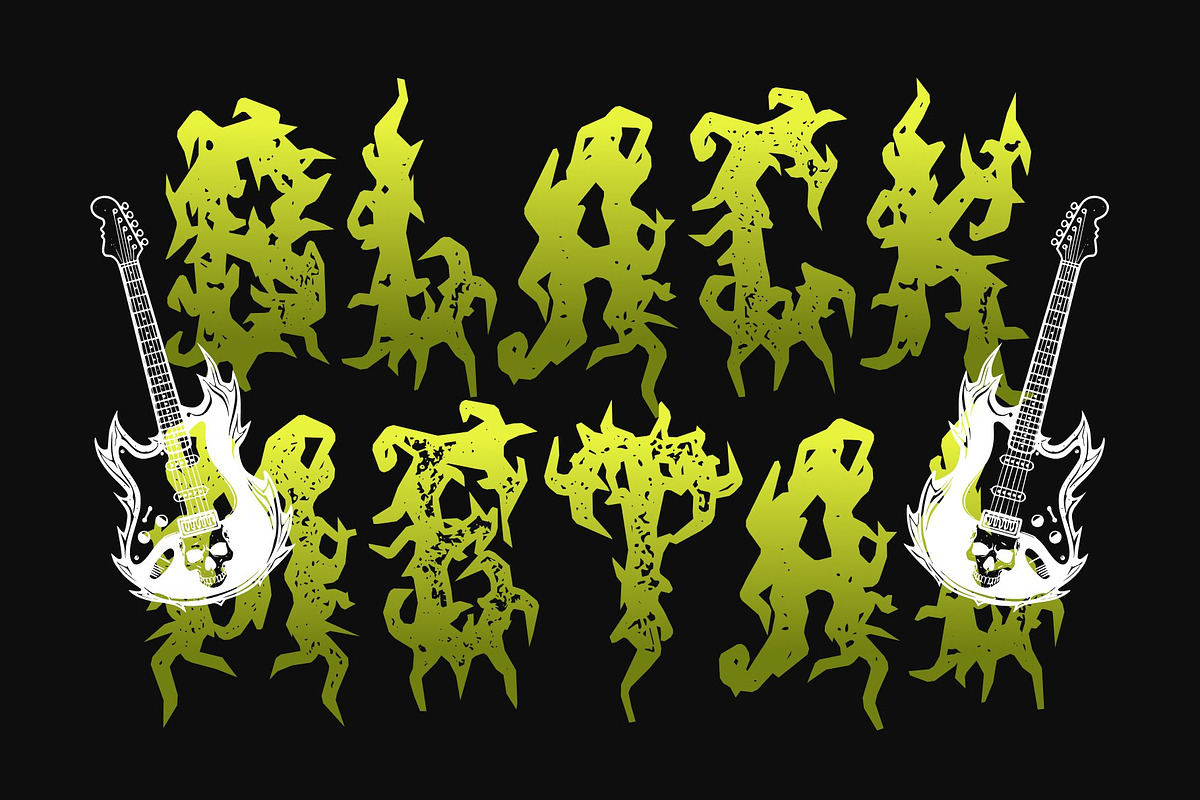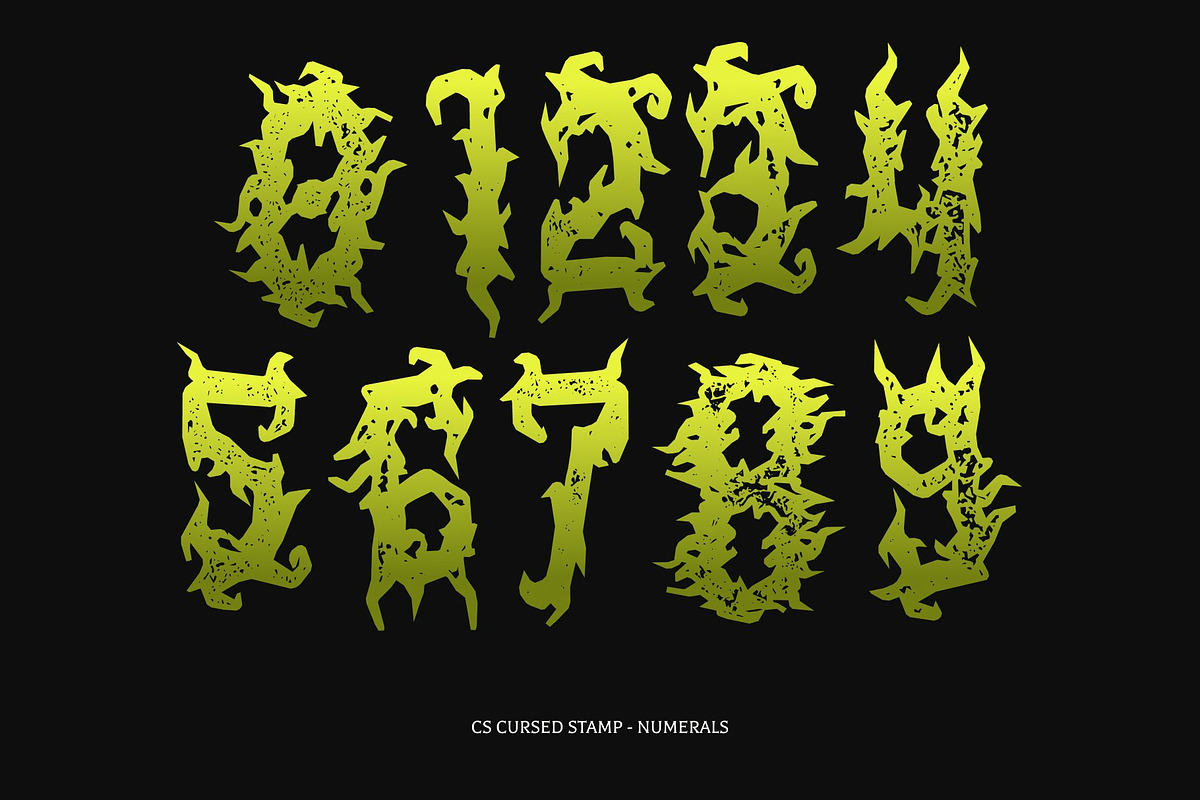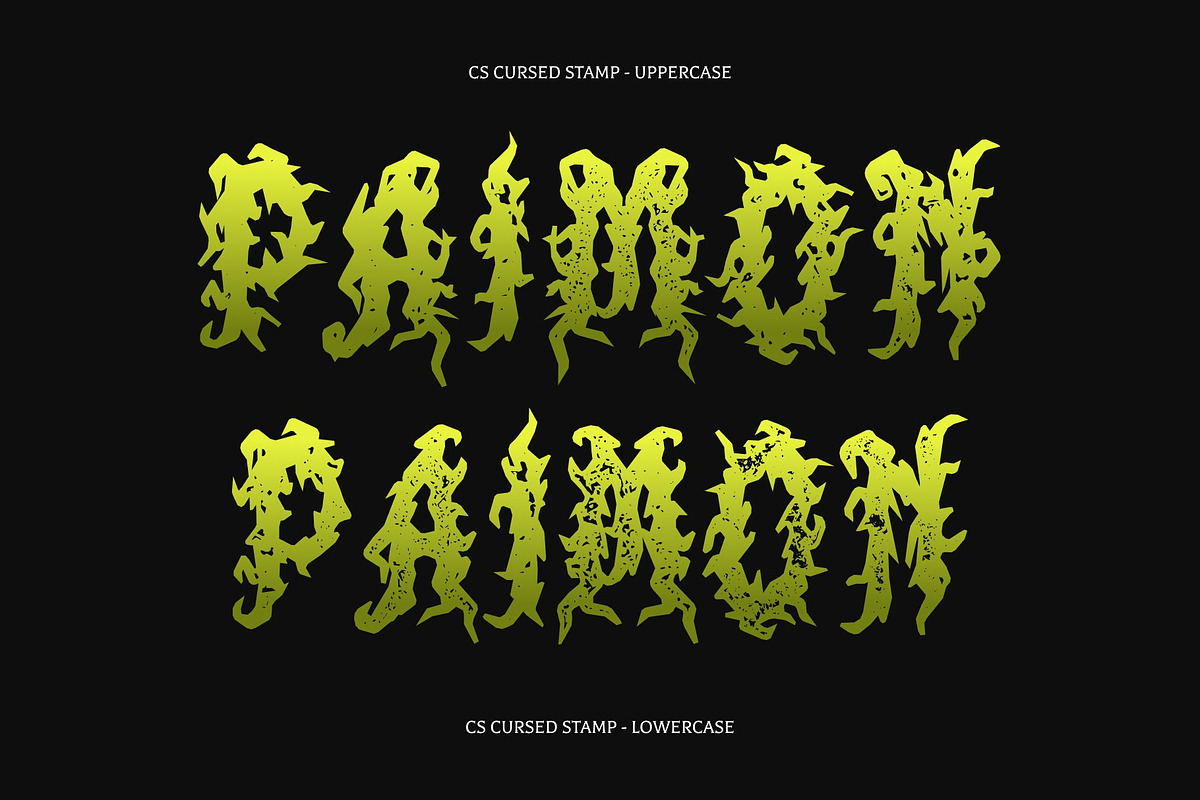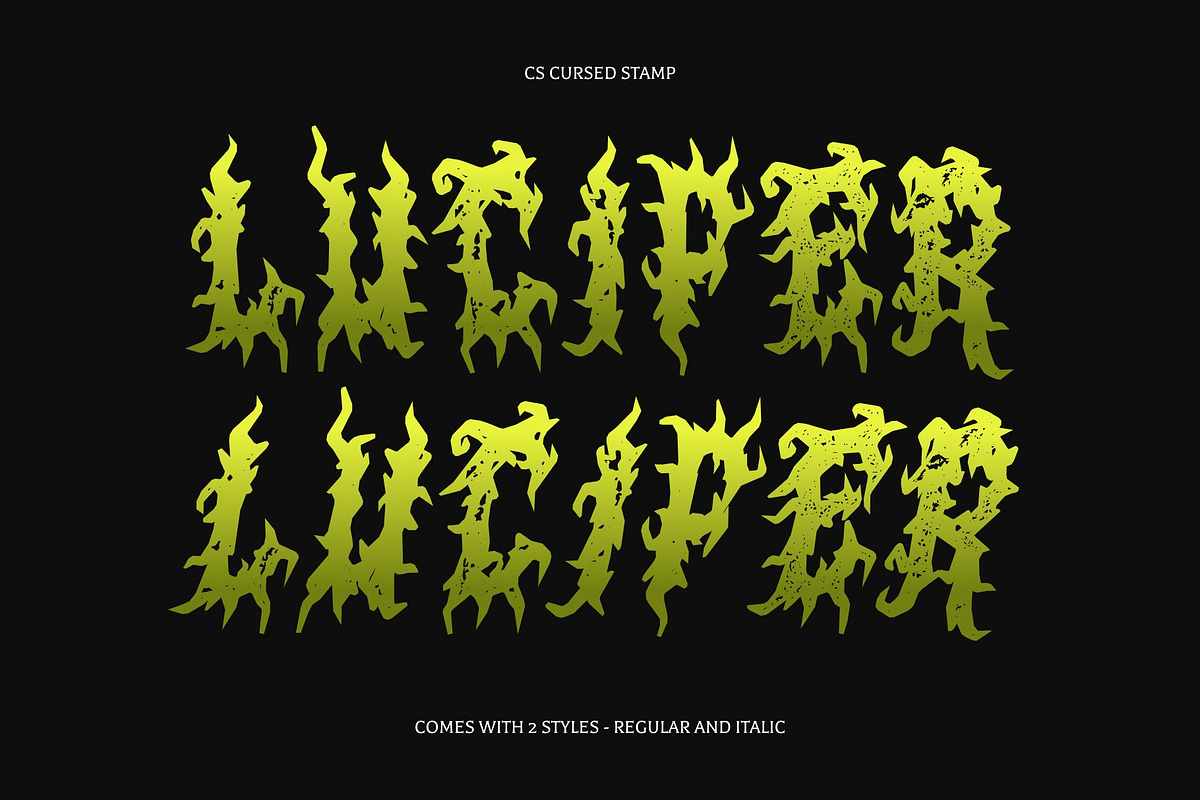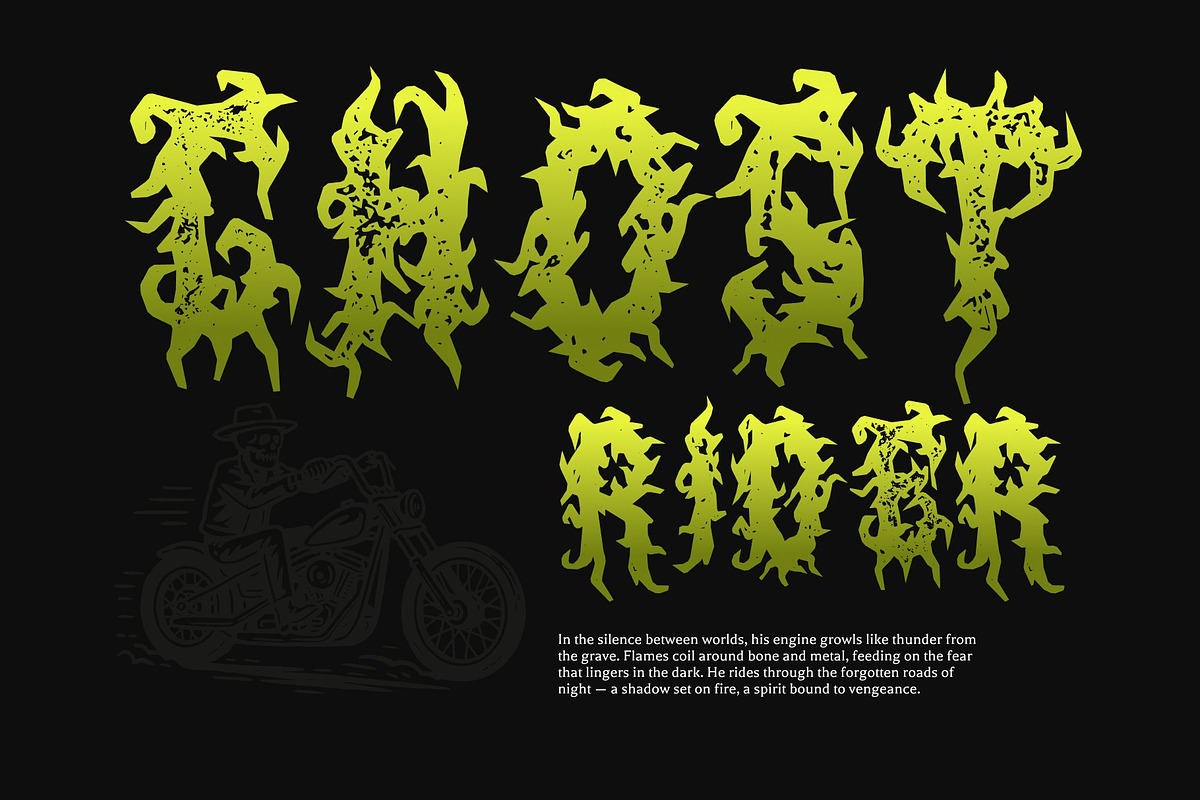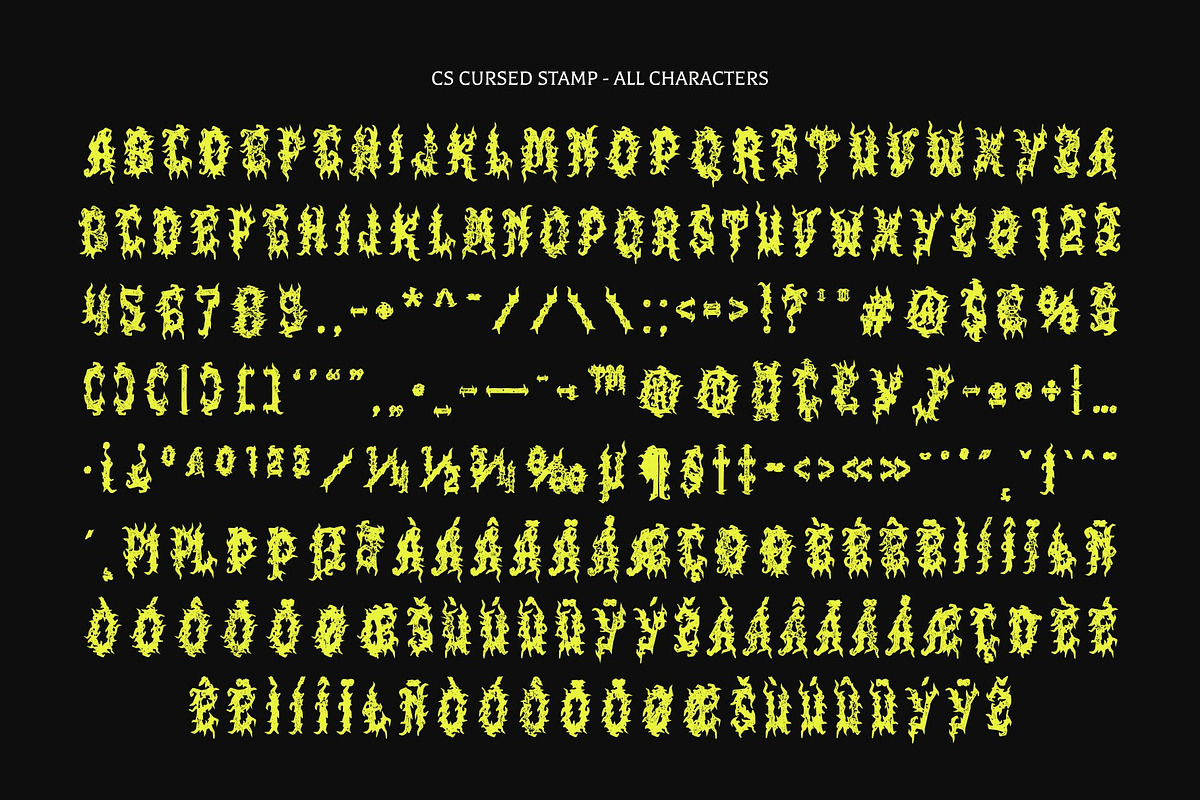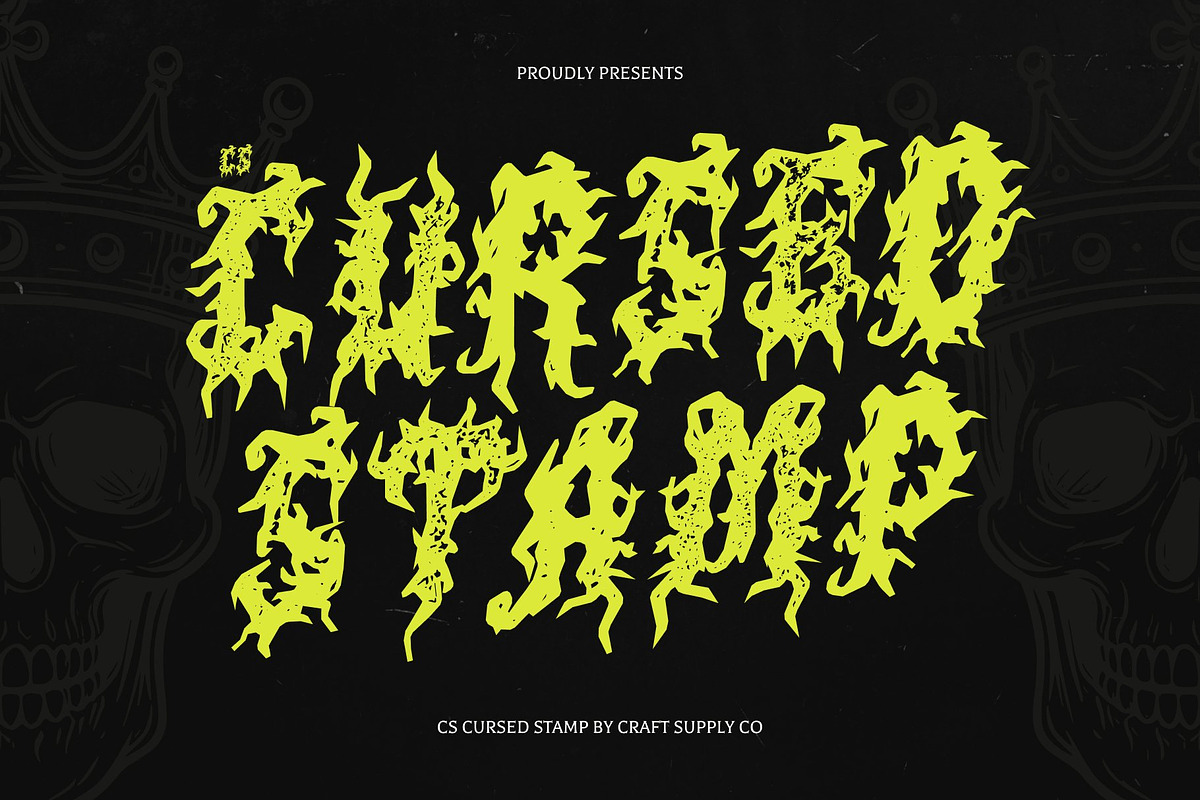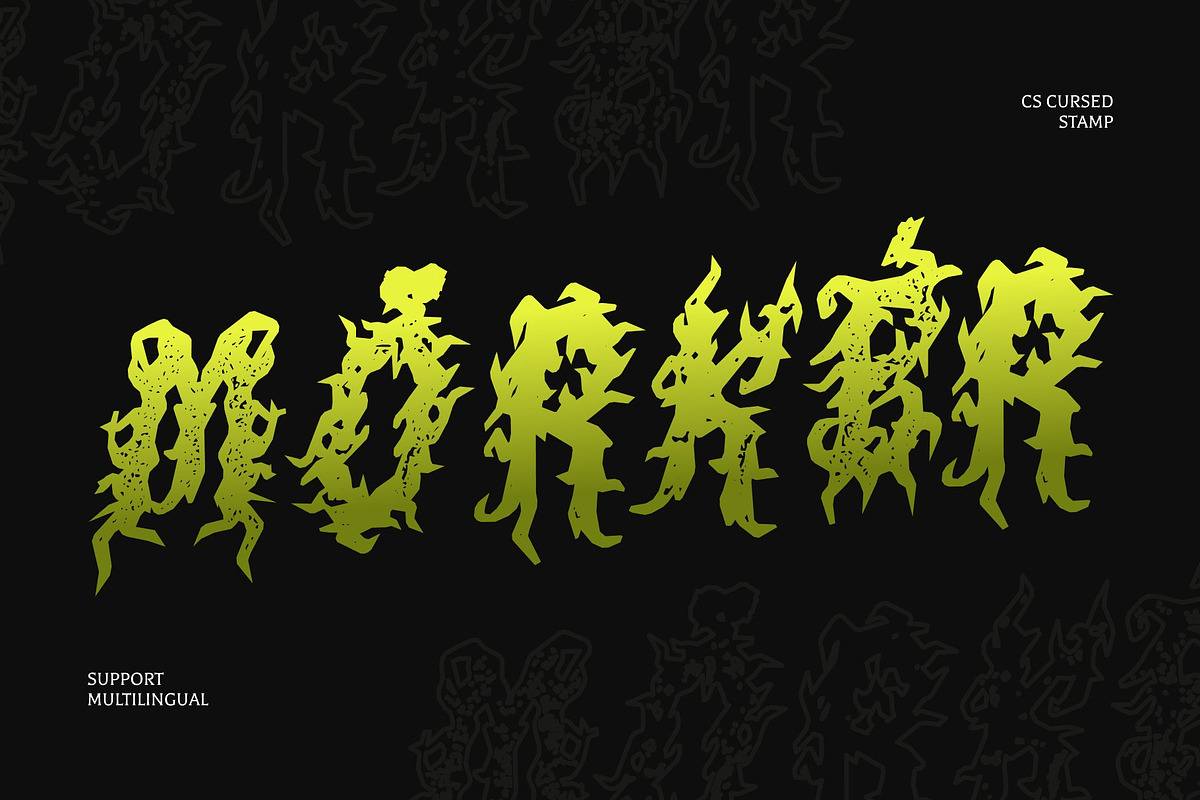
CS Cursed Stamp
CS Cursed Stamp – Black Metal Font: A Typeface of Darkness and Rebellion
Sharp, Intense, and Gothic This font is a striking black metal display font defined by sharp, jagged letterforms and fragmented, chaotic structures. The stamp effect adds a distressed, worn texture that enhances its raw and rebellious personality, giving the font a vintage underground feel that strengthens its dark aesthetic.
Perfect for Bold and Atmospheric Designs Created for the boldest visual statements, this font thrives in black metal band logos, album covers, concert posters, and dark-themed artwork. Its intricate details and distorted forms create a powerful and intense visual impact that immediately commands attention.
Raw Power with an Underground Edge The aggressive shapes and gothic-inspired details evoke an ominous atmosphere filled with tension and emotion. The stamped texture reinforces the gritty, handcrafted look perfect for designs that aim to feel raw, authentic, and unapologetically rebellious.
Versatile for Edgy and Dark Aesthetics From alternative branding to atmospheric creative projects, this font delivers a haunting and unforgettable presence. Its unique letterforms ensure your typography stands out while resonating with audiences drawn to extreme, unconventional design.
CS Cursed Stamp Regular
CS Cursed Stamp Italic